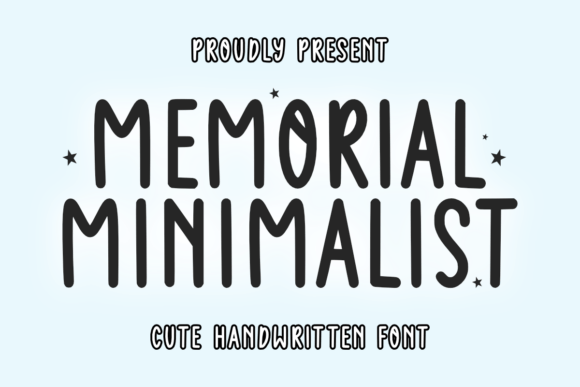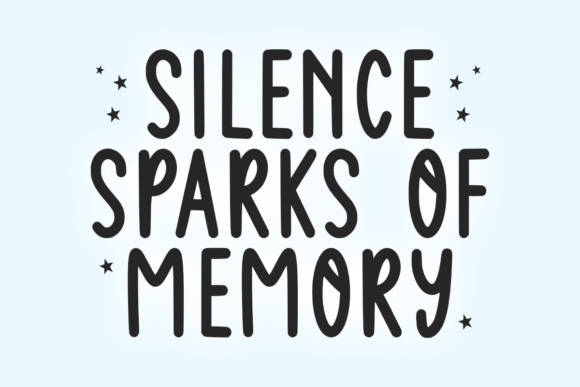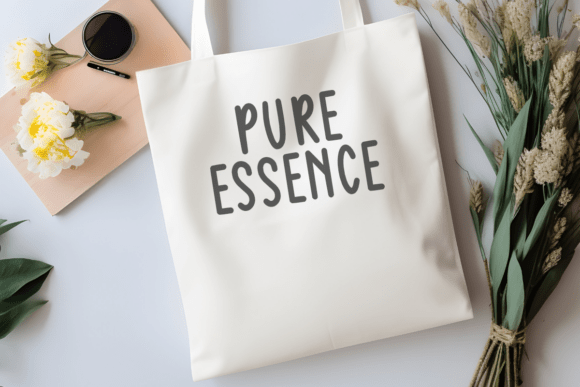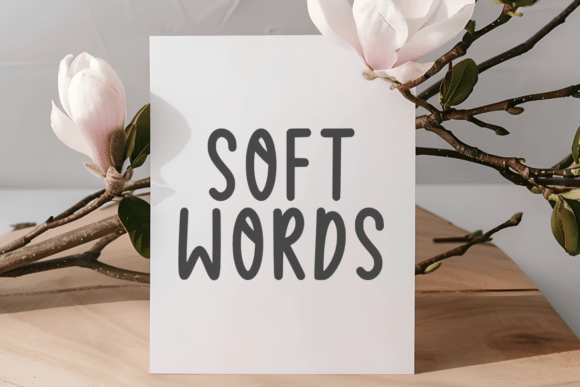
Memorial Minimalist Font
About the Memorial Minimalist Font
Meet Memorial Minimalist Font, a stunning font that brings a touch of elegance and professionalism to any design. Memorial Minimalist is a clean and charming handwritten font with a casual, approachable look. Its playful tall letterforms bring personality and warmth to any design while maintaining modern simplicity. Perfect for children’s books, cards, branding, or anything that needs a friendly, handmade touch.
This font excels in applications requiring a friendly, approachable feel, such as logos for children’s brands, wedding invitations, or short-form content on social media. It also works well for headlines, short quotes, and packaging designs where a handcrafted aesthetic is desired. However, its informal nature makes it unsuitable for large blocks of text or UI elements where readability is paramount. Avoid using it for body copy or lengthy paragraphs.
For optimal visual harmony, pair Memorial Minimalist with a clean sans-serif font like Montserrat for a modern contrast, or a classic serif like Playfair Display for a touch of elegance. A geometric sans-serif such as Lato could also create a balanced and contemporary feel.
Memorial Minimalist’s core personality is best described as cheerful and approachable, yet sophisticated in its simplicity. Its charm lies in its delicate balance of playfulness and refined minimalism.
Memorial Minimalist Font Usage Examples
Memorial Minimalist Font Example